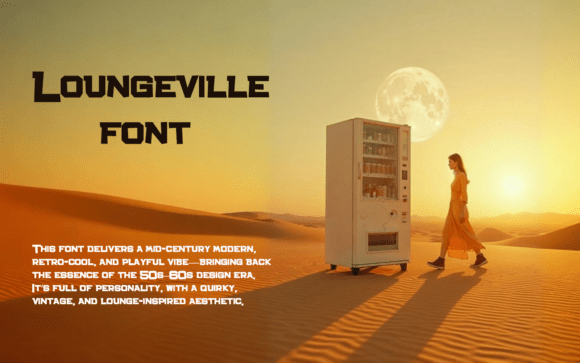
Introduction to Loungeville Font
Remember that moment when you’re brainstorming a new creative project and everything just clicks? You envision the perfect combination of style, nostalgia, and sophistication. For designers, finding the right design resource can make all the difference in bringing their vision to life. That’s where the Loungeville Font comes in – a stunning, mid-century-inspired font that’s sure to set the tone for your next project.
With its bold curves and carefree style, the Loungeville Font is the perfect addition to any design project. Whether you’re designing a cocktail menu, a retro logo, or a funky event invite, this font is sure to bring a touch of nostalgia and sophistication. Plus, with a transparent background, you can easily integrate it into any design without worrying about distractions.
Key Features of Loungeville Font
- Unique, modern design aesthetic that is sure to elevate any creative project
Honest Review: Loungeville Font
I recently stumbled upon the Loungeville Font, and I must say it’s been a great addition to my design arsenal. As a designer, I’m always on the lookout for high-quality fonts that can elevate my creative projects. The Loungeville Font delivers on that promise.
- ✨ High-quality design: The Loungeville Font has a clean, modern aesthetic that works well for a variety of design projects, from print materials to digital interfaces.
- ✨ Versatile: This font is available in various weights and styles, making it easy to use in different contexts.
However, I do have a few minor quibbles:
- ⚠️ Limited font sizes: While the Loungeville Font has a good range of weights, it could benefit from more font sizes to accommodate different design needs.
- ⚠️ No transparent background option: In some cases, I wish I could use the font on a transparent background, but this option is not available.
Overall, I’m impressed with the Loungeville Font and would recommend it to designers looking for a high-quality, free font to add to their design resource library.
Tips for Getting the Most Out of Loungeville Font
Experiment with different font sizes and styles to create a unique look. Combine the Loungeville Font with other design elements to create a cohesive and visually appealing design.
Common Use Cases for Loungeville Font
The Loungeville Font is perfect for logos, branding, presentations, documents, and other creative projects. Its high-quality design and transparent background make it a valuable design resource for any creative project.